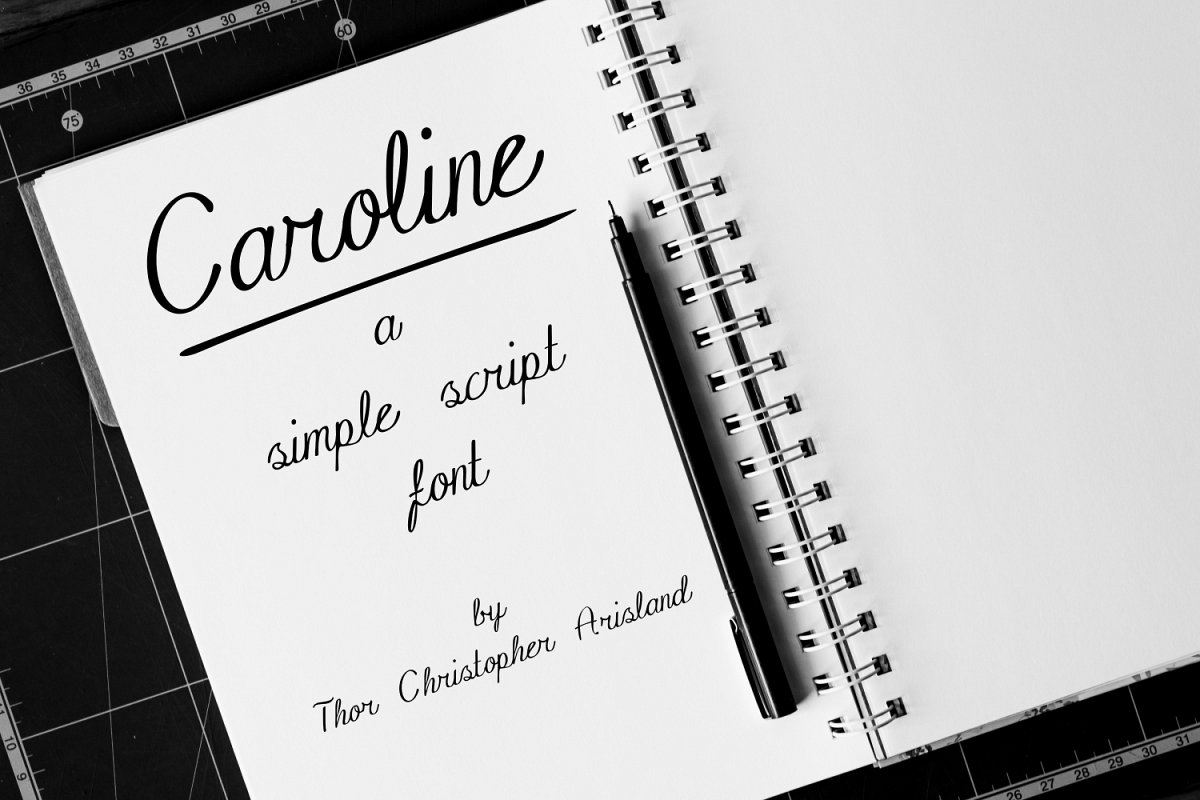
Caroline
Caroline is a clean, simple script font. It was based on the authors cursive handwriting. It has been traced and digitally cleaned up. The partially geometrically constructed letters give the font a clean look.